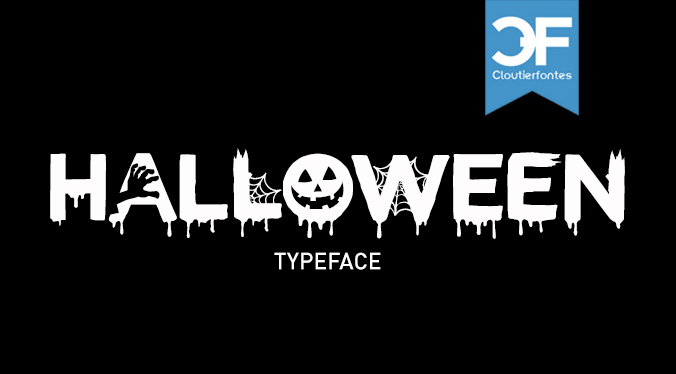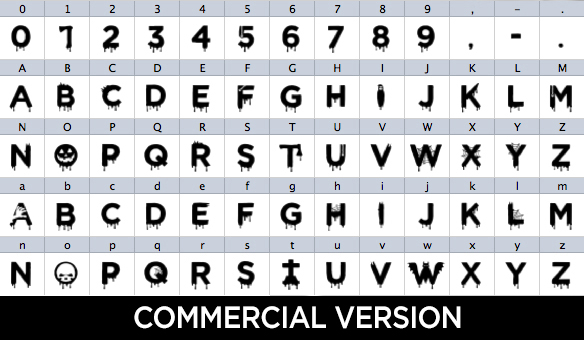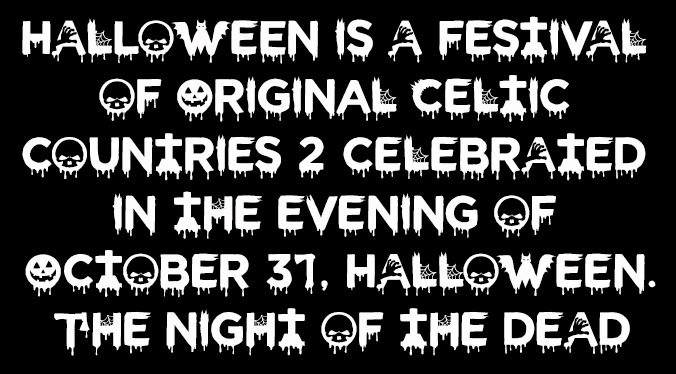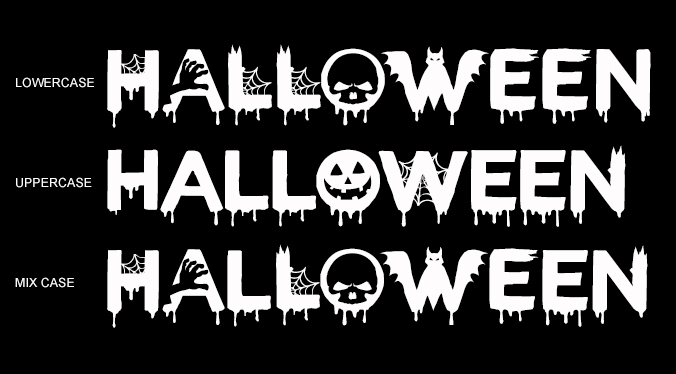
CF Halloween
Dripping horror caps with a jack-o-lantern O
CF Halloween by Cloutier Fontes is a free all-caps horror display font built from dripping, hand-inked strokes that look like melting wax or dripping blood.
The character map hides a few fun surprises: a jack-o-lantern face fills the O, a ghost silhouette stands in for the I, and spiderwebs stretch across the W, X, and Y. Several other letters get a stitched zipper texture for extra creep factor.
It's a strong pick for Halloween party flyers, haunted house signage, spooky logos, and trick-or-treat invitations - anywhere you want bold, dripping horror lettering. Since it's caps-only, pair it with a plain sans serif for any lowercase body text.